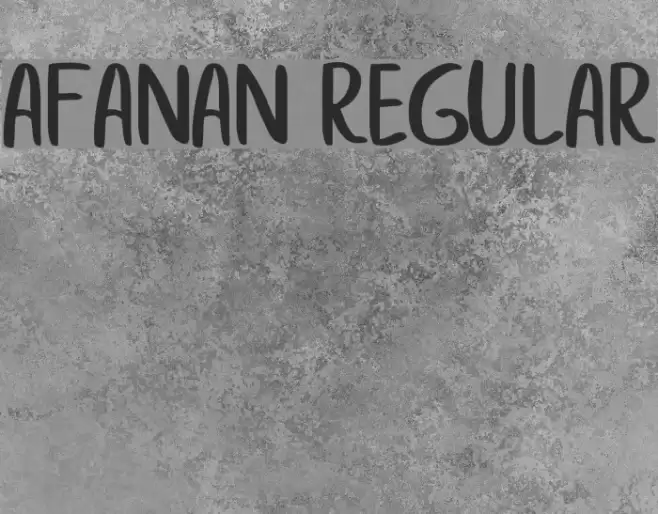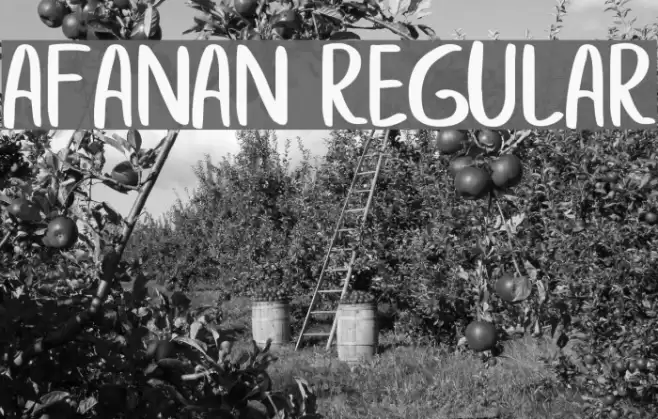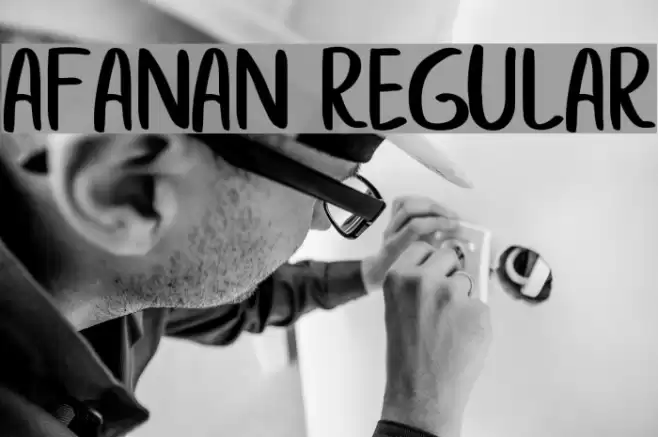
afanan Regular Font
afanan Regular Description
This font features a playful and casual handwritten style, characterized by smooth, rounded edges and a slightly irregular baseline that adds a touch of whimsy. The letters are tall and narrow, giving it a condensed appearance, while maintaining a friendly and approachable feel. The strokes are consistent in weight, providing a uniform look across all characters. This font includes both uppercase and lowercase letters, numerals, and a variety of special characters, making it versatile for different design needs. Its informal style makes it suitable for projects that require a personal touch or a relaxed vibe.
A playful, handwritten font with smooth, rounded edges and a casual style from Uncategorized fonts.
- Proposed Projects: Ideal for greeting cards, children's books, casual branding, and social media graphics.
- Width: Condensed
- Overall Style: Casual
- Use Case: Headlines, Informal text, Branding